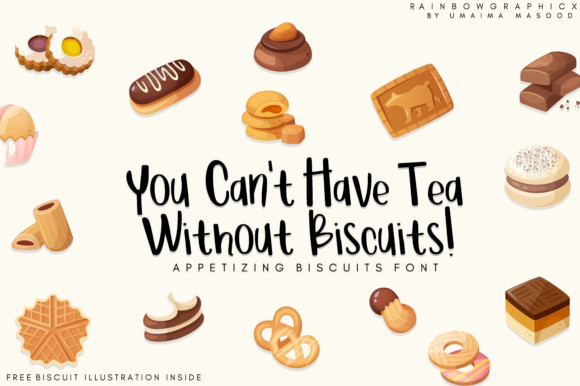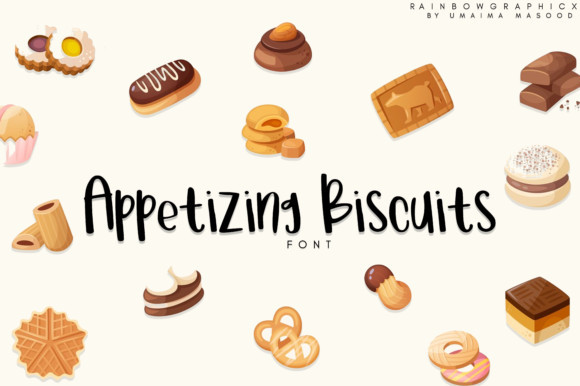
Appetizing Biscuits Font
Appetizing Biscuits is a truly unique and tasty script with a cool feel. Use it to add a charming feel to any design project.